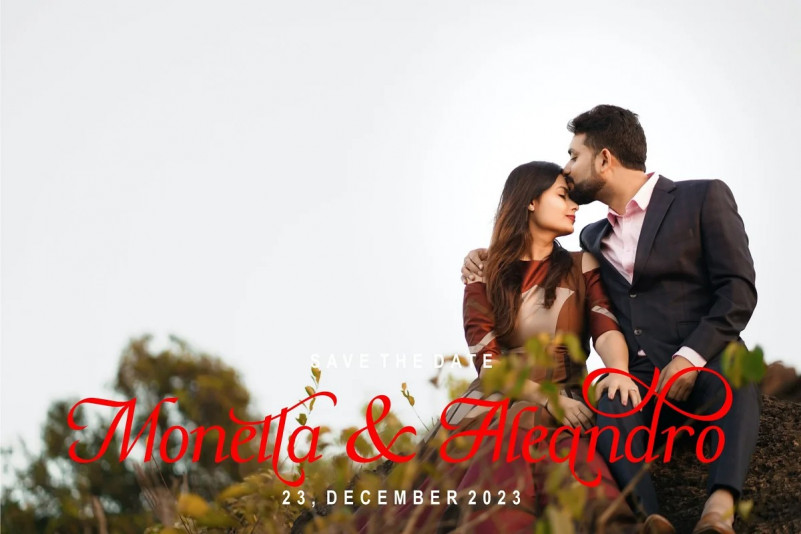
Flashgude Font
Flashgude is a lovely and delicate script font that exudes elegance and class. This font was particularly crafted for those who need a beautiful and refreshing look to their designs.
Flashgude, A new fresh & modern calligraphy script with a deluxe calligraphy style. The impression is classy, yet modern, making Flashgude still catchy for all your creativity. A charming typeface and So beautiful on invitation like greeting cards, branding materials, business cards, quotes, posters, and more!